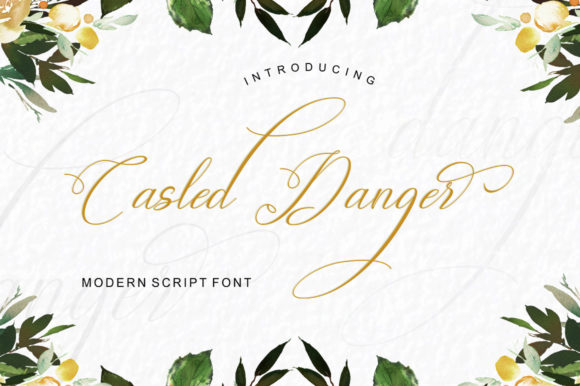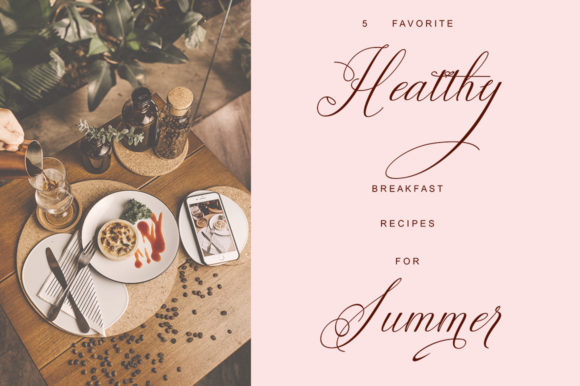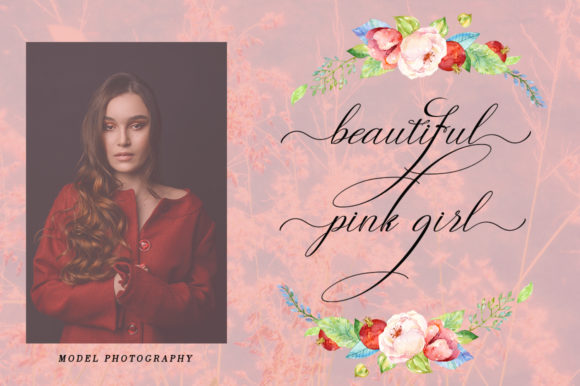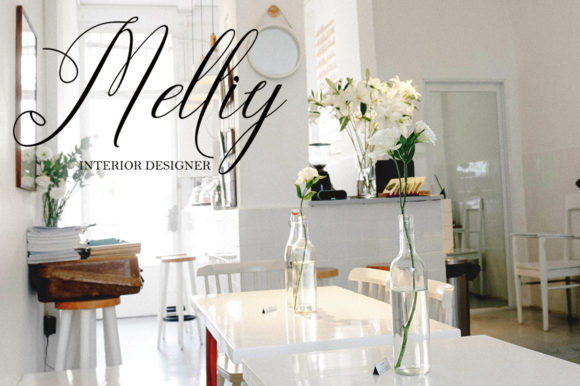
Casled Danger Font
Casled Danger is a stunning and elegant handwritten font with an authentic feel. Fall in love with its bold swashes, and turn any design project into a stand out.